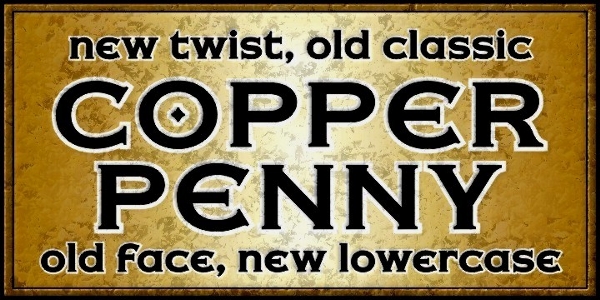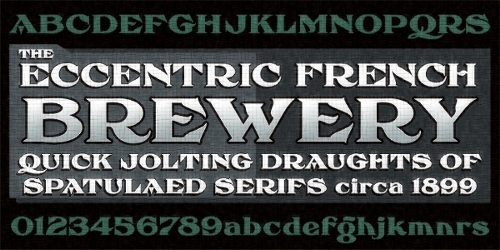
My name is James and, I work for a sign shop in Tulsa. But, in my spare time I work with Mike Adkins creating fonts. Since both of us come from a sign background - mostly computer based - we design fonts with signs in mind. Now I understand that this is primarily a hand lettering forum (I'm not that thick despite what some people say.). But, I assume that some of you use some computer fonts. I also understand that commercial abuse of this forum isn't acceptable. Right about now you are asking yourself, "what is the point."
The point of all of this is that I'm trying to get some feed back about a couple of fonts we've designed recently. We've put them up on MyFonts with no success. I'm starting to think that it is the wrong market. So, let me know what you think or you can even tell me where to go and how to get there...
First is Copper Penny. It is a revival of Copperplate Gothic.
I'd try making a web page for each of the individual fonts with all the pertinent meta tags, link it to the pages that sell the font and wherever else you can, maybe there are others like me that have a search engine obsession. I really like Copper Penny, I think it would be a popular font with the right marketing, good luck with it. Have you tried an advertisement in Signcraft or Signs of the Times or one of the other trade mags? Sometimes it takes a while for a new font to catch on. I also think you could do better with the gallery images for it on myfonts, get some cool illustrations up there that show it being used in it's glory.
See if you can get it posted on some engraving and monument forums/sites as well.
Curious to see where this one goes......
You may be expecting thousands of sales the first week, but I don't think it works that way. As far as I know, you only released these fonts in the past week?
You need to let the advertising at MyFonts kick in, then let people have a chance to see the fonts at their site. Being turn of the century "retro" fonts, people will decide when they need that look. With a tight economy, I don't think people are spending on impulse quite like they did in the past.
Actually Mike, Copper Penny was first released last fall and French Eccentric about two weeks ago.
since that time we have gotten a number of suggestions that other weights and styles of Copper Penny might be a good idea. I'm not as concerned for instant wealth or fame as I am some indication that we are generally going in the right direction.
What these fonts need is to become families, I think. Much easier said than done. I'd love to make a condensed version of Eccentric French, and then an italic of both the regular and condensed versions. First, I'd need the software, then learn the software, then find the time outside of work and family time...
I downloaded both fonts, and have used them in jobs. The Atkinson font I have found particularly useful, a nice variation - I also own the LHF version but find this one more appealing.